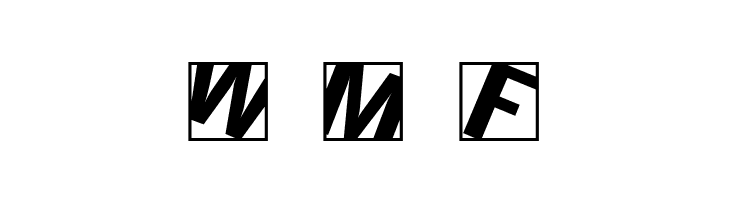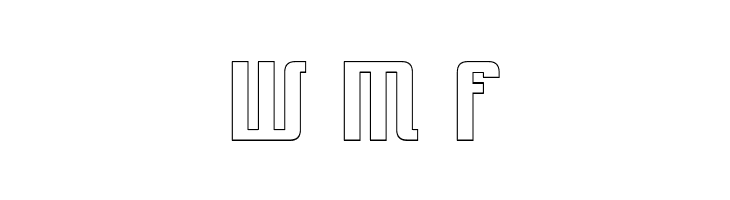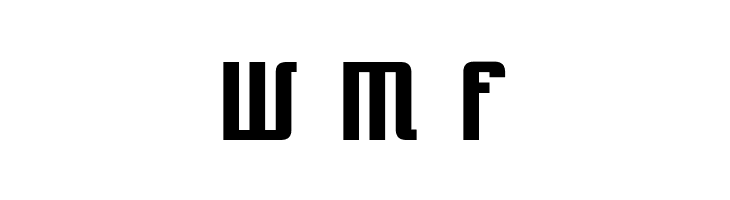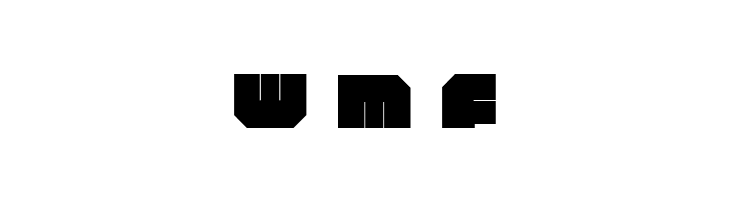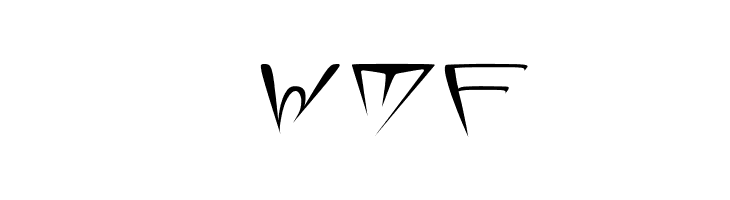
A bold, hand-drawn font with a vintage, stamp-like appearance.
A bold, textured serif font with a vintage, distressed appearance.
A distressed, grungy font with a chaotic, textured appearance.
A bold, distressed font with a vintage, textured appearance.
A bold, distressed font with a grunge aesthetic and uniform character width.
A bold, modern font with angular characters enclosed in squares.
A distressed, vintage typewriter-style font with a rough, textured appearance.
A vintage typewriter-style font with bold, textured characters.
A bold, stencil-style font with a gritty, urban texture.
A bold, modern sans-serif font with geometric lines and medium contrast.
A bold, narrow font with elongated characters and a modern, artistic style.
A bold, outlined font with art deco influences, featuring tall, narrow characters.
A bold, modern font with dynamic strokes and geometric elements.
A bold, geometric font with sharp edges and high contrast.
A bold, handwritten-style font with expressive, flowing strokes.
A bold, condensed font with a modern and impactful style.
A decorative, geometric font with angular lines and a futuristic aesthetic.
A bold, geometric outline font with a modern and futuristic design.
A bold, geometric font with a strong, modern presence.
A modern, geometric font with a futuristic and sleek design.